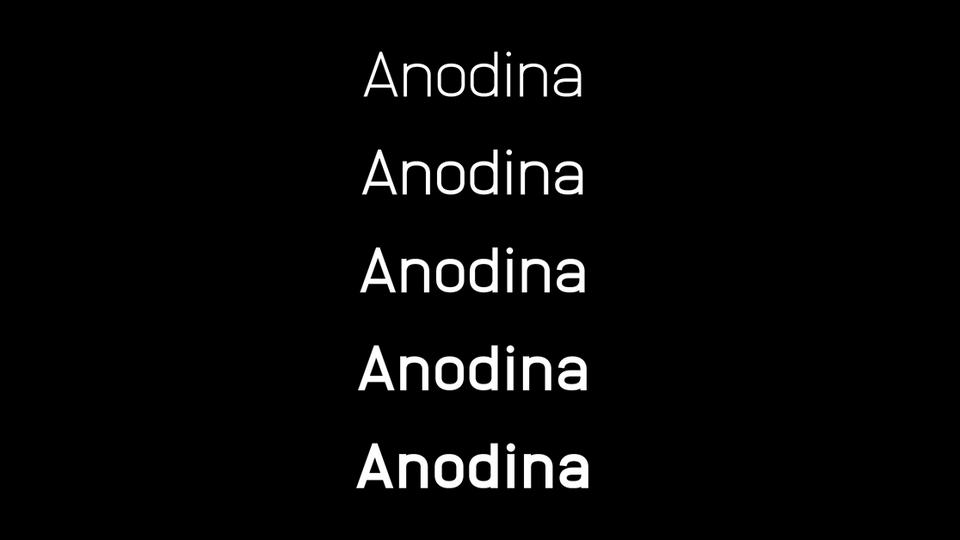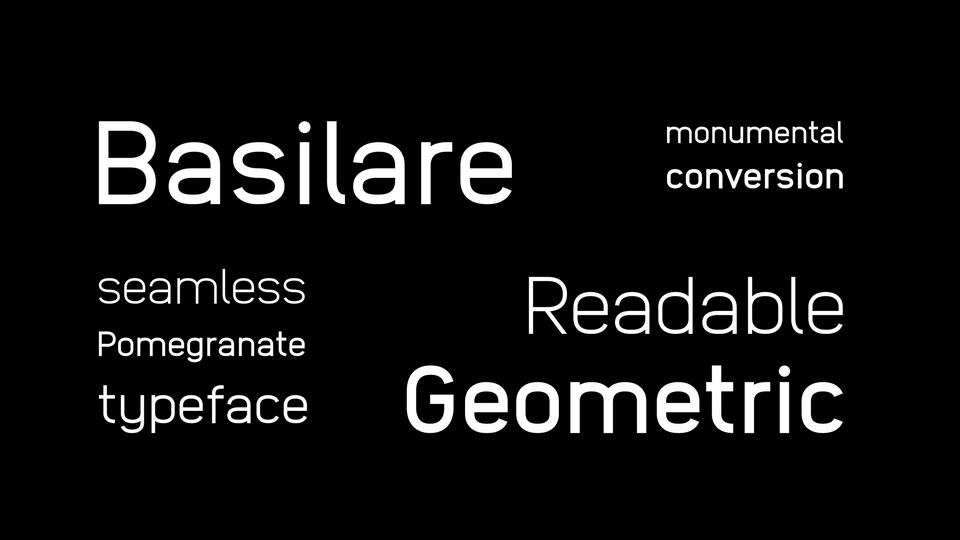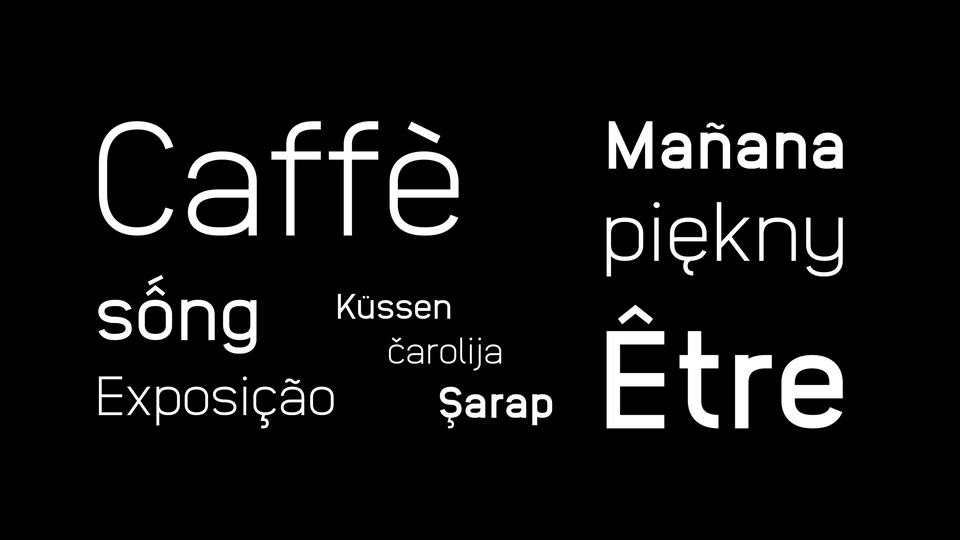
Anodina is a free sans serif font family with human features but symmetric in its soul. The typeface contains 5 weight from Extra Light to Extra Bold, contains uppercase and lowercase letters, numerals, symbols, multilingual accents. Great as basic typeface for texts and headlines as well as logos, badges, posters and much more.